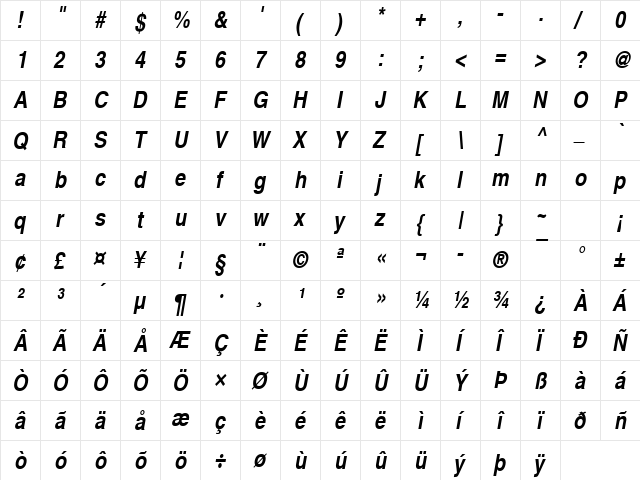
Design Context for Nimbus Sans Becker LCon Typeface
Nimbus Sans Becker LCon is a composed and adaptable typeface that performs quietly and consistently across a wide range of design contexts. The dynamic lean of this cut emphasises speed and emphasis in any layout. Its bold stroke weight gives it real presence on the page.
Pro Tip: Try Nimbus Sans Becker LCon for annotation and caption copy alongside an upright companion — the contrast in angle creates a dynamic but ordered typographic system.